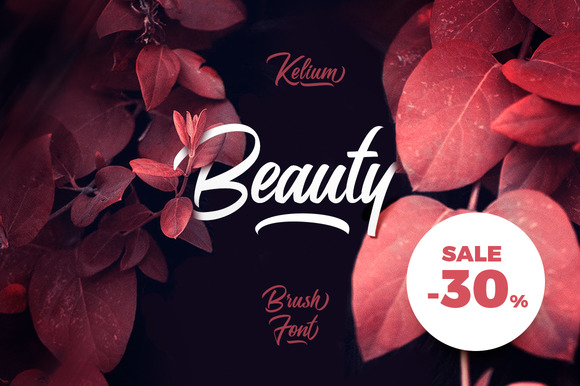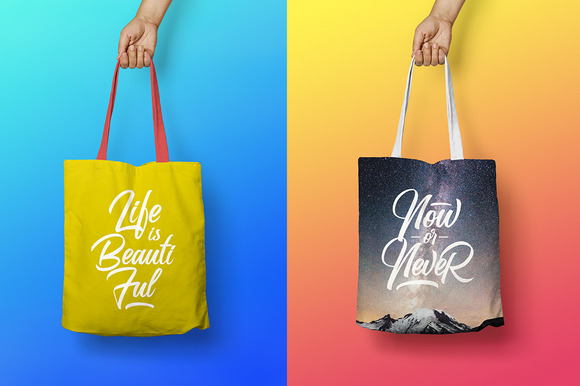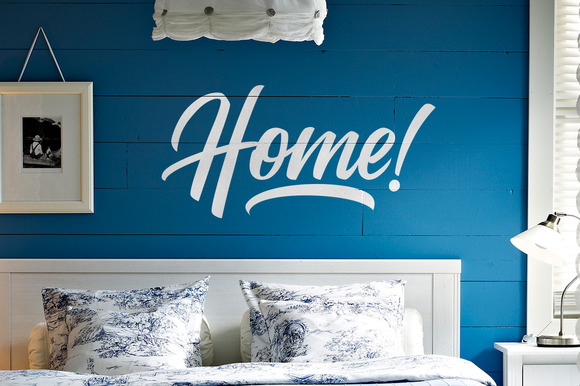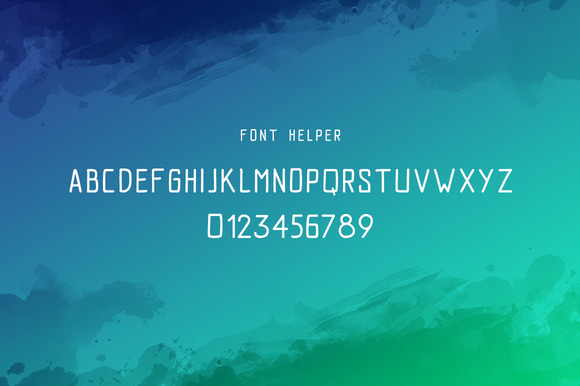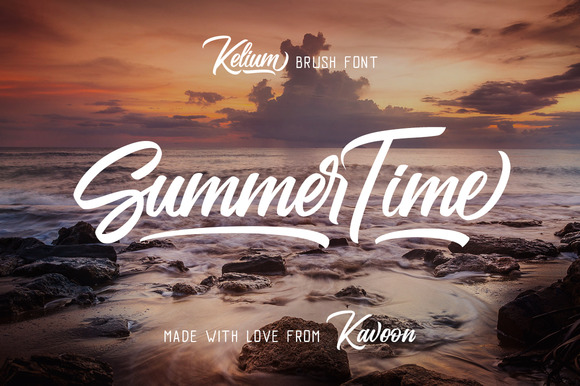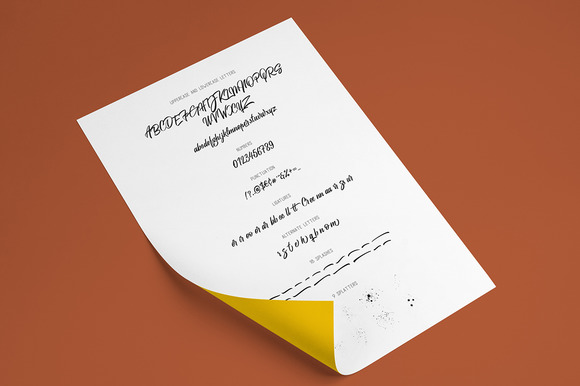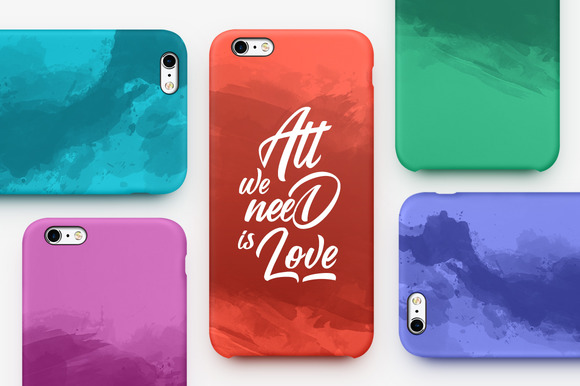
Kelium Font
About Kelium Font
Kelium is a stunning hand-lettered font.
This smooth brush font is perfect for creating stunning designs that require personality and elegance.